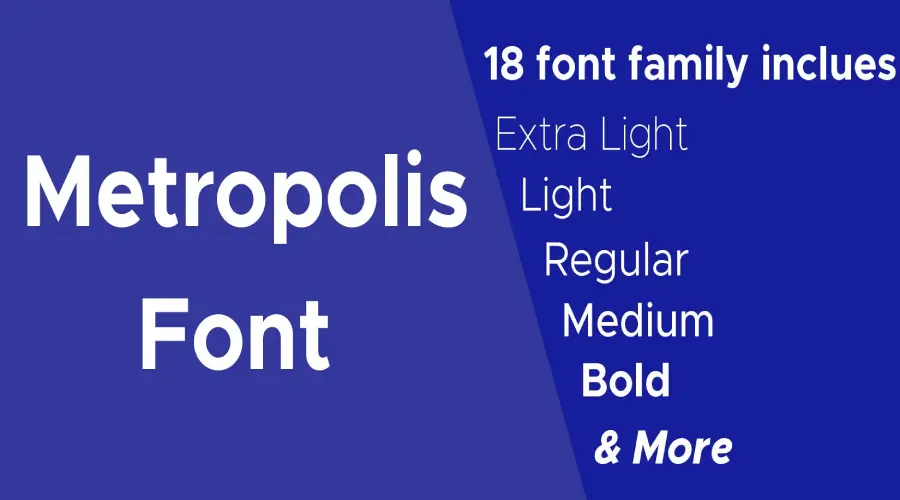
In this article, we will introduce you to one of the most popular and versatile fonts in the world of typography. Metropolis font is one of the best examples of modern and sleek typography. Let’s take a deep dive into the font and unravel its mysteries.
Birth and Characteristics of Metropolis
Metropolis is a sans-serif font that has a clean and minimalist look, with straight lines, sharp corners, and uniform proportions. Chris Simpson designed it in 2018. He was inspired by the industrial movement of the 1920s, when art and design were influenced by new technologies and innovations. Its geometric design is reminiscent of the architectural style of the modern city, hence the name Metropolis. It features 18 styles, including 9 weights and 9 italics. It is designed to be readable at small sizes, while also being beautiful at large sizes. It is a free and open-source font, licensed under the SIL Open Font License.
Tips About Using The Font
Metropolis font is quite versatile and you can use it in various projects. You can use it to create a for your business, a headline for your magazine, a poster for your event, or a website for your portfolio. This font can help you achieve a professional and modern look.
We hope you enjoyed this article about Metropolis font. This font is a modern and geometric typeface. It has a sleek and elegant look, with 18 styles to choose from. It is suitable for various purposes, such as logos, headlines, posters, websites, and more. It is also a free and open source font, so you can use it for any project you want. It is a great choice for anyone who wants to create a stylish and professional design with typography.